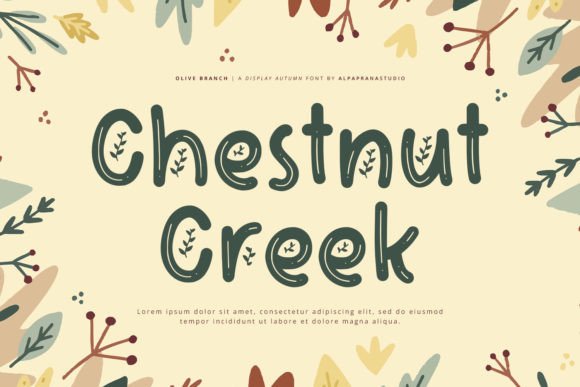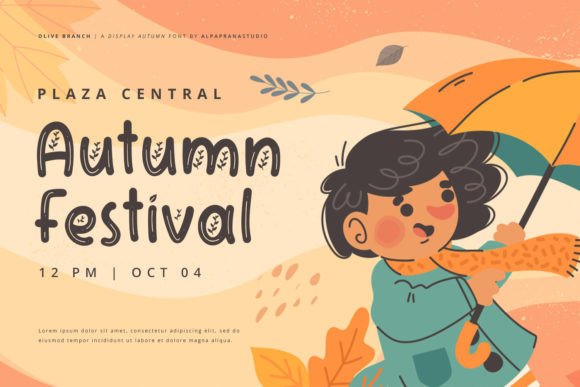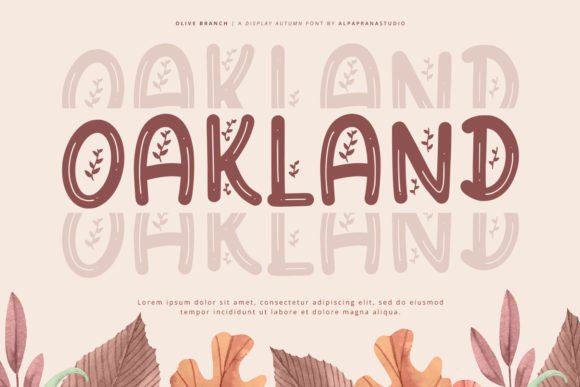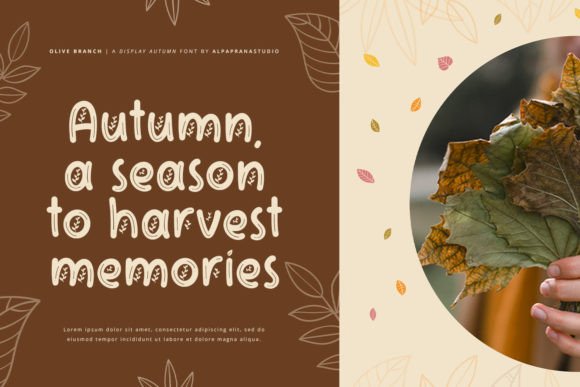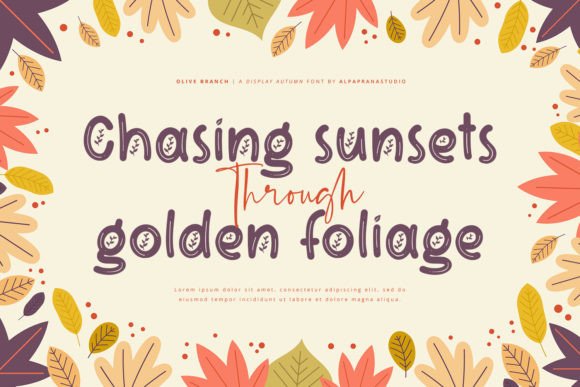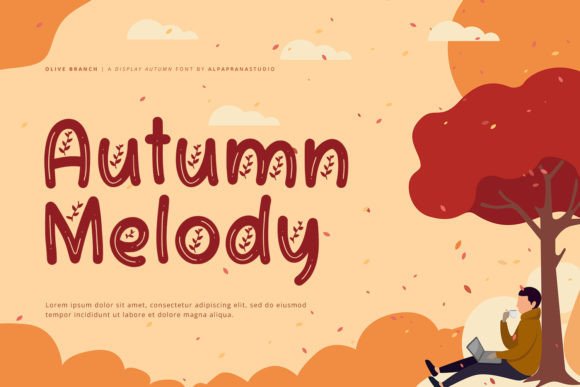
Introduction to Olive Branch Font
Do you remember the feeling of excitement when you stumble upon the perfect font for your creative project? The one that makes your design stand out, and your clients take notice? For designers, this moment is priceless. It’s the result of hours of searching, experimenting, and refining. And, for many, that moment has arrived with the Olive Branch Font.
This charming display font exudes modern and cute feels, making it a perfect fit for branding, logo design, and various design projects. Its versatility and high-quality design make it a valuable addition to any designer’s toolkit. Whether you’re working on a logo, poster, or book cover, the Olive Branch Font is sure to bring a touch of elegance and sophistication to your work.
Key Features of Olive Branch Font
- Comes in a transparent background option, making it easy to integrate into various design elements.
- Features a high-resolution design (up to 300 DPI) for crisp and clear display.
- Perfect for designers and artists looking for a distinctive design element for their work.
- Can be easily scaled to fit various sizes and resolutions, making it a versatile design resource.
Honest Review: Olive Branch Font
I recently had the chance to work with the Olive Branch Font, and I must say it’s been a game-changer for my creative projects. The font is incredibly versatile and can be used for a wide range of applications, from elegant wedding invitations to modern logos.
Here are some of the things that work well with the Olive Branch Font: ✨
- High-quality design: The font is beautifully crafted and features intricate details that make it stand out.
- Transparent background: This feature is super helpful for designing graphics with complex backgrounds.
While the Olive Branch Font is generally excellent, there are a few limitations to be aware of: ⚠️
- Limited character set: The font only includes a limited set of characters, which can be a problem for more complex projects.
- No bold or italic styles: This can make it difficult to add emphasis to certain text elements.
Overall, I’m thoroughly impressed with the Olive Branch Font. Its high-quality design and free download make it an excellent resource for designers, and its transparent background feature is a game-changer for creative projects. While it has some limitations, I would definitely recommend it to anyone looking for a unique and stylish font.
Getting the Most Out of Olive Branch Font
To get the most out of the Olive Branch Font, consider using it on a transparent background to create a beautiful and elegant design. You can also experiment with different font sizes and colors to create a unique and eye-catching effect.
Common Use Cases for Olive Branch Font
The Olive Branch Font is perfect for creating invitations, business cards, and other design elements that require a high-quality and elegant font. You can also use it to create custom logos, social media graphics, and other design assets.